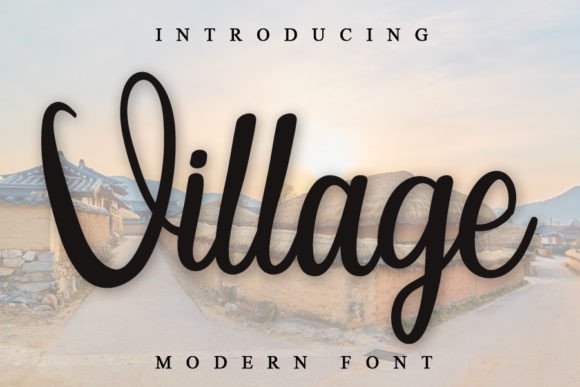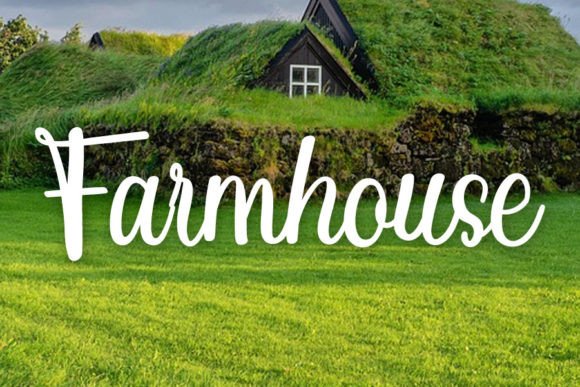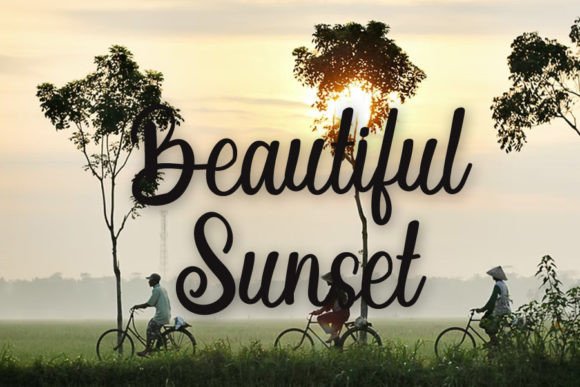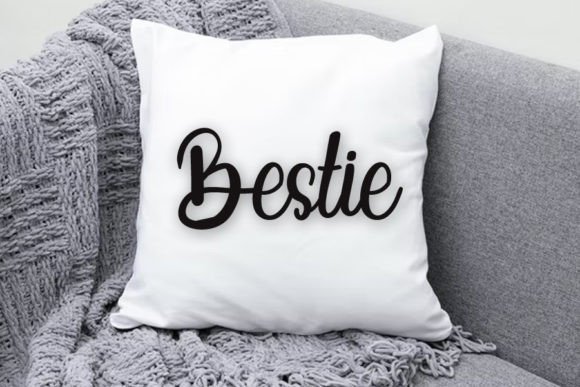
About Village Font
Village is a font that exudes freshness and beauty, making it a versatile choice for a myriad of design purposes. Whether you’re working on YouTube banners, cover logo mockups, wedding invitations, ID cards, flyers, or crafts, Village offers a distinct charm that enhances the visual appeal of your projects.
The font’s adaptability makes it an excellent fit for various digital and print design applications. In the realm of YouTube banners and cover logo mockups, Village brings a sense of freshness and uniqueness, contributing to eye-catching visuals that can significantly impact your branding and promotional efforts. Its simplicity and uniqueness ensure that your design elements stand out, leaving a lasting impression on your audience.
For special occasions like weddings, Village adds a touch of elegance to invitations. The font’s beauty and simplicity create a stylish and memorable aesthetic, setting the tone for a sophisticated event. The unique character of Village adds a personalized touch, making your wedding invitations stand out and contributing to a memorable celebration.
In the practical realm of ID cards, Village strikes a balance between simplicity and uniqueness. Its clean lines and distinct features contribute to a modern and professional look, ensuring that your ID cards are not only functional but also visually appealing.
When it comes to promotional materials like flyers, Village’s fresh and beautiful design enhances the overall presentation. The font’s simplicity aids in readability, making your messaging more effective and engaging for your target audience.
Village is not limited to digital applications; it also complements craft projects. Whether you’re creating handmade items, labels, or other craft-based designs, this font brings a level of creativity and style that adds value to your artistic endeavors.
In summary, Village is more than just a font; it’s a design asset that can contribute to the progress and development of your business. Its simplicity and uniqueness make it a valuable tool for a variety of design purposes, allowing you to create visually stunning and impactful projects across different mediums. Utilize the fresh and beautiful qualities of Village to elevate your design work and make a positive impression on your audience.